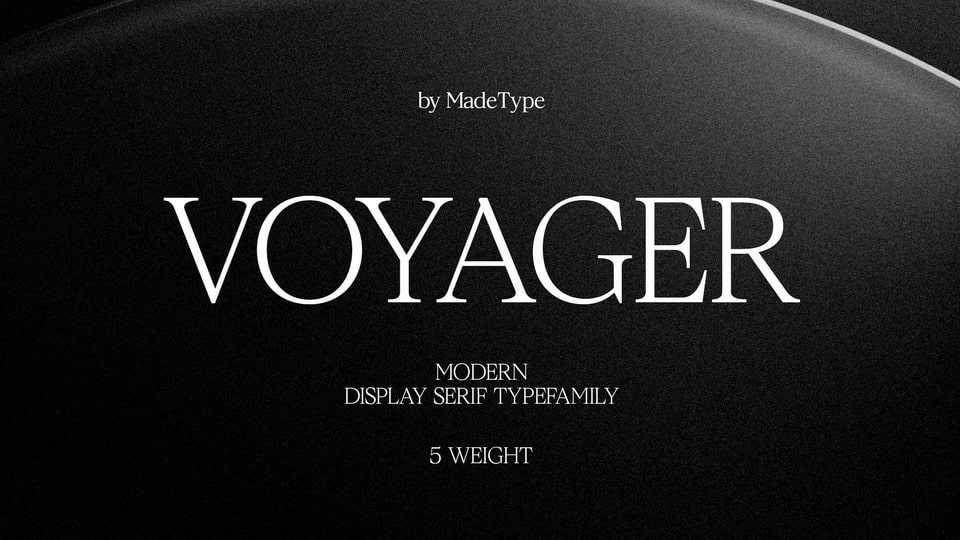
Download MADE Voyage font, a modern and elegant serif typeface. Best used as a display for headings and logos, MADE Voyage’s refined shapes and subtle contrast give any project a touch of luxury and class.
Designer: Made Type